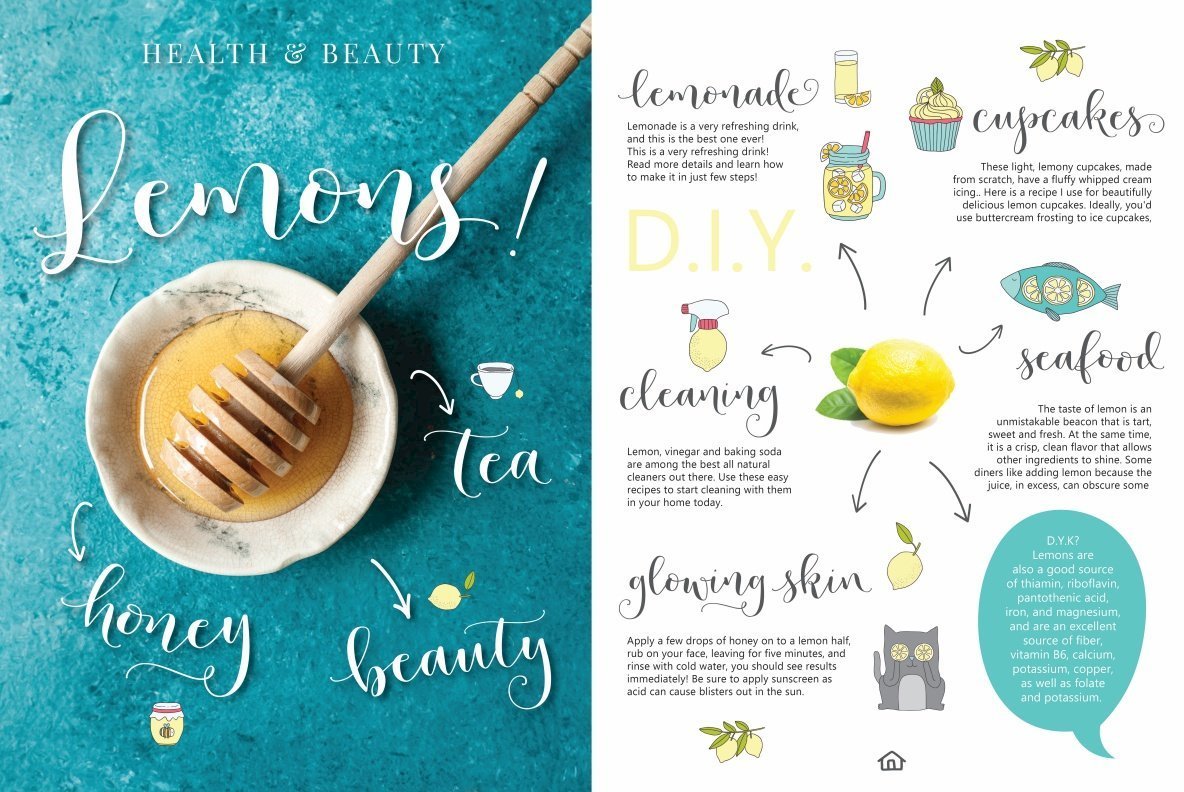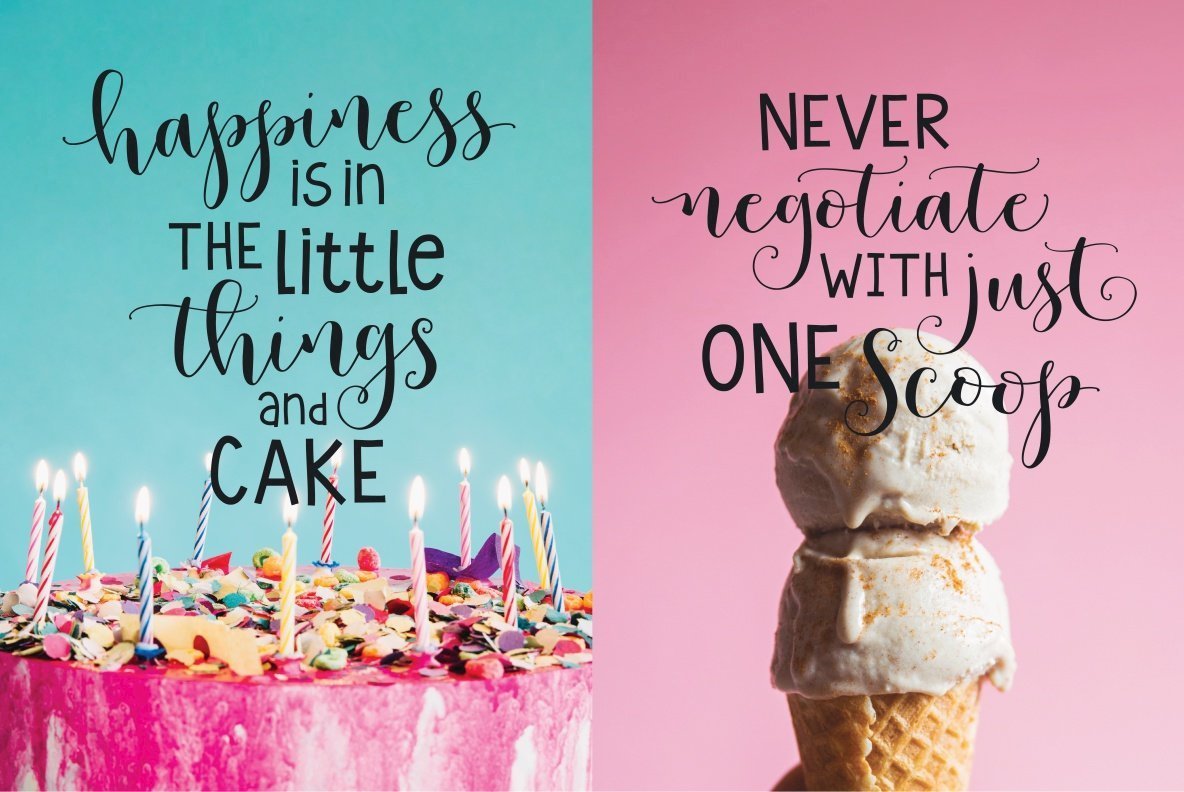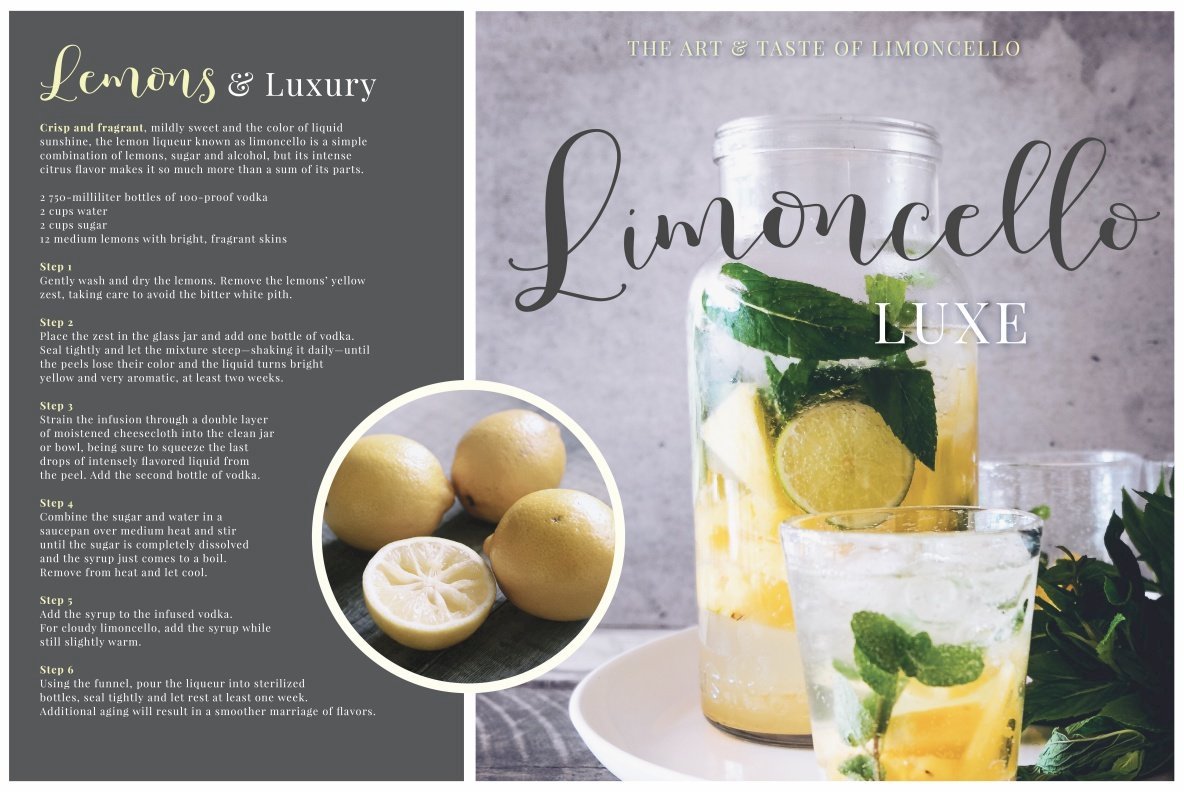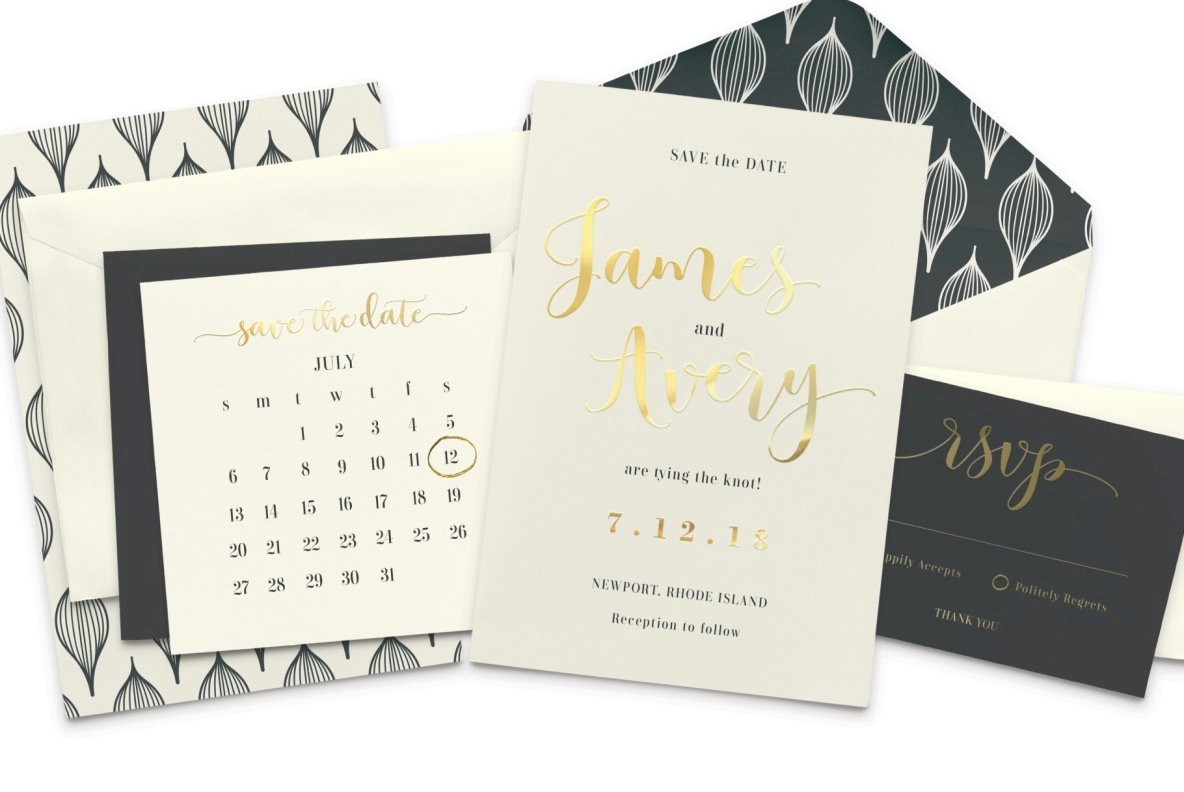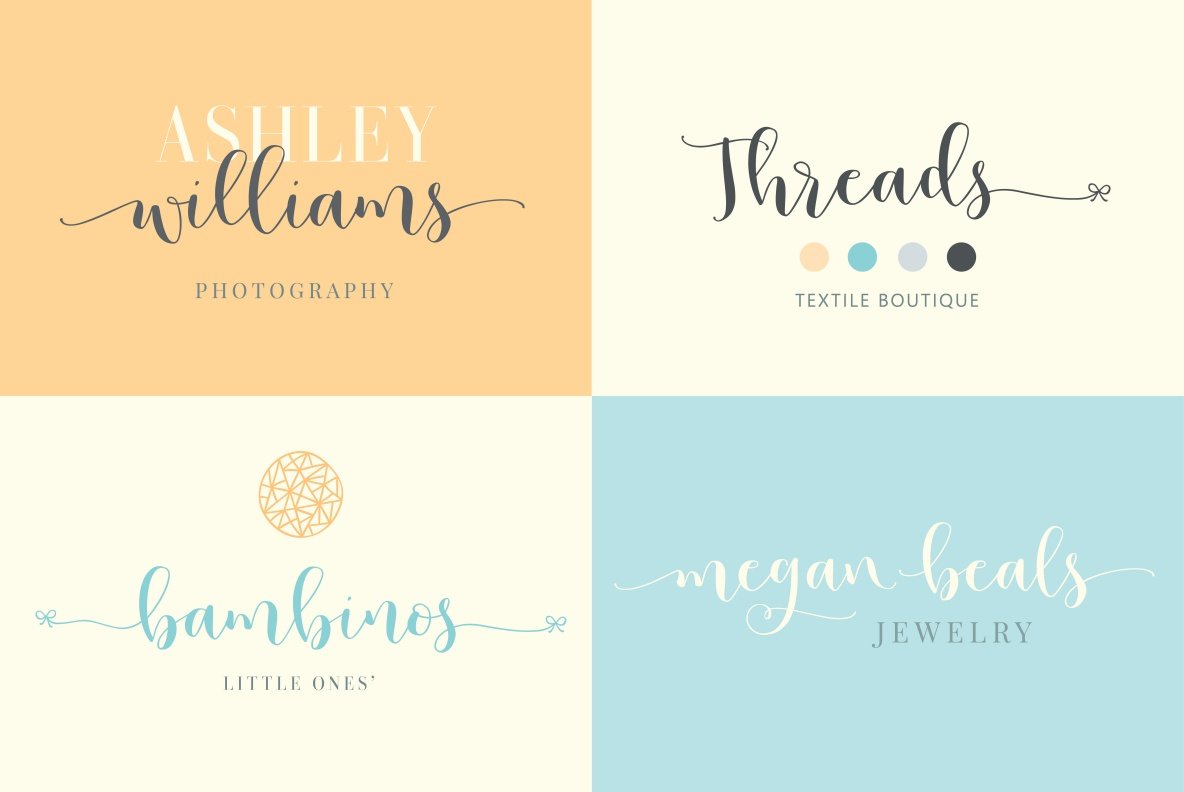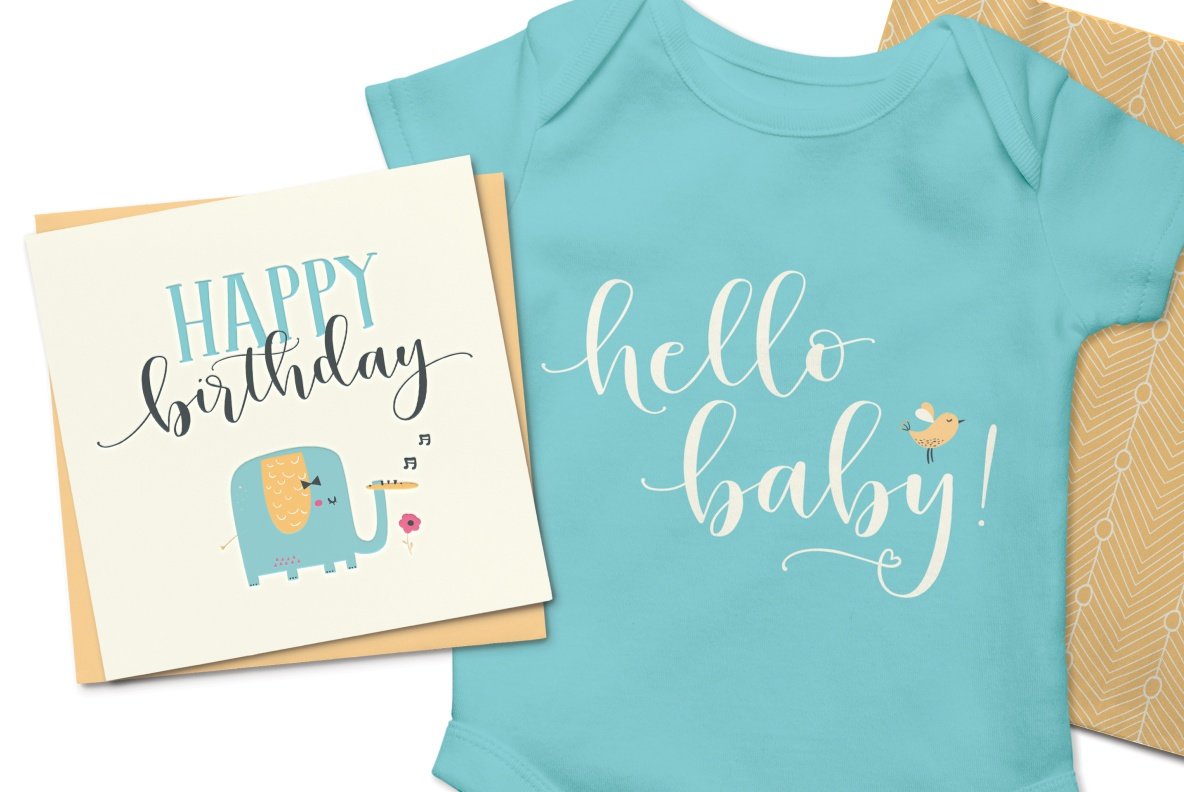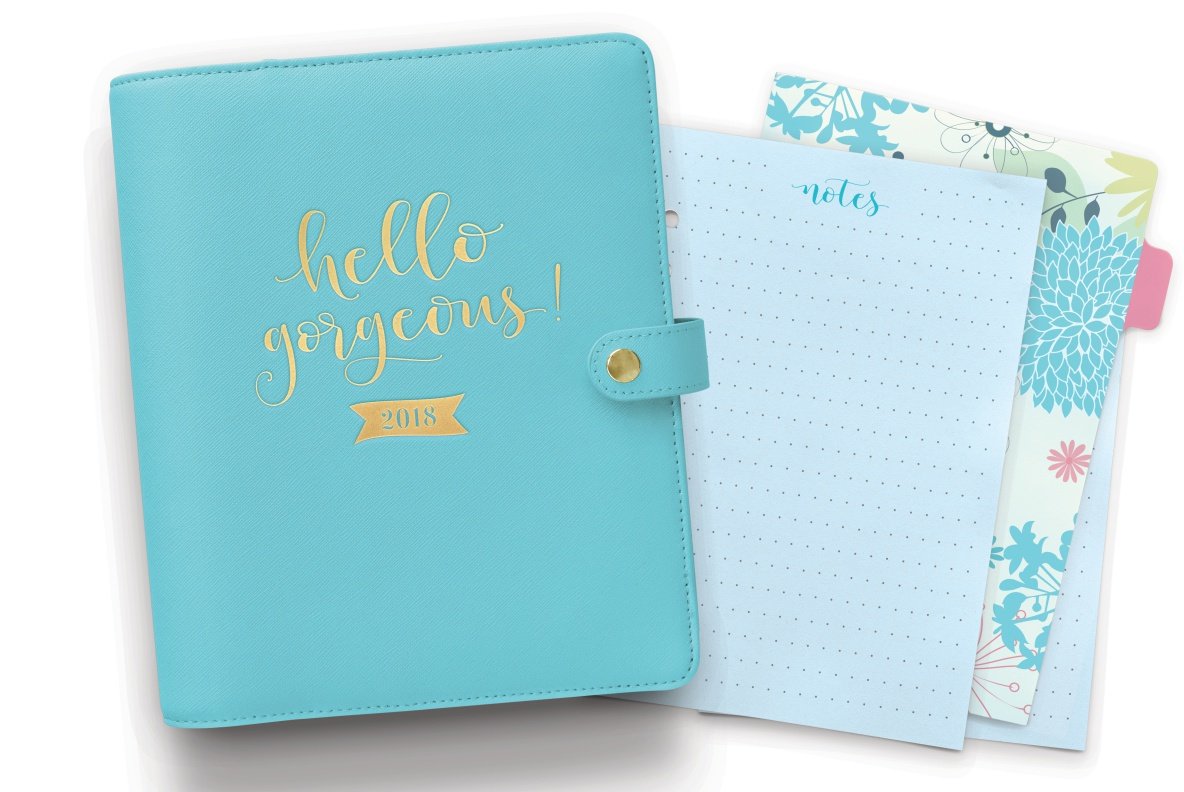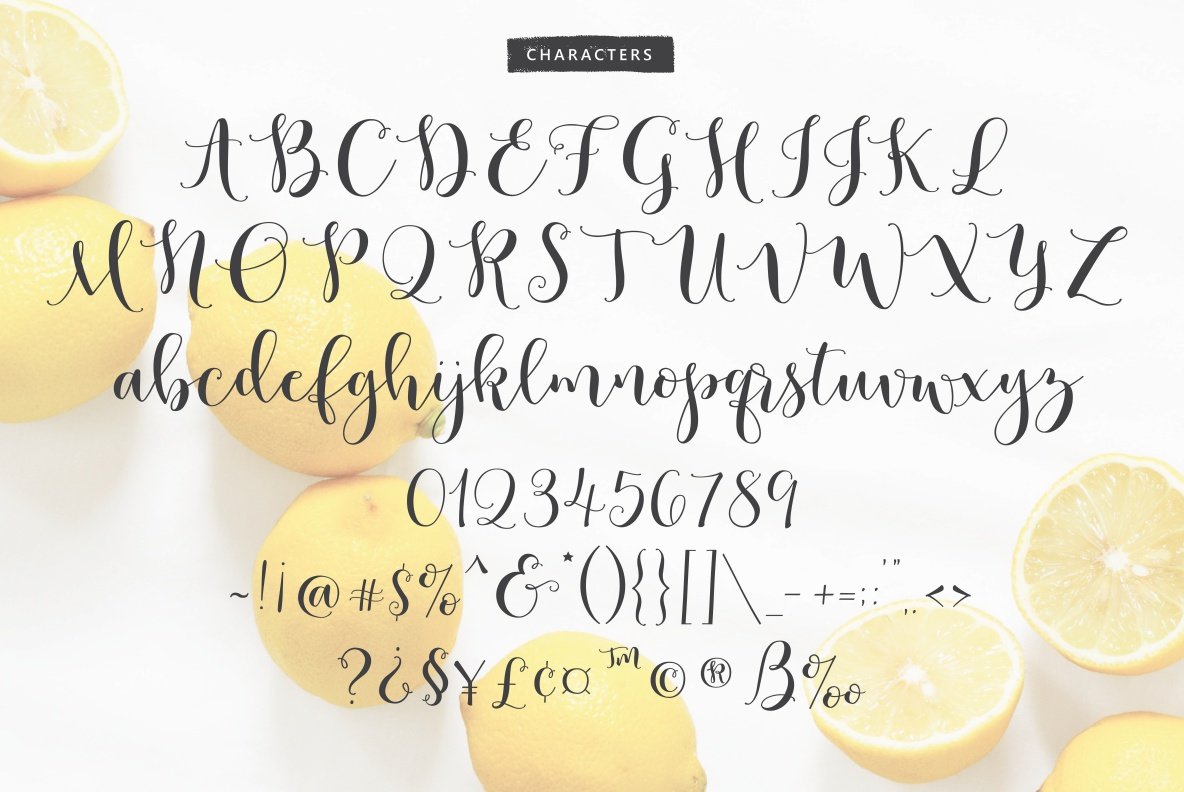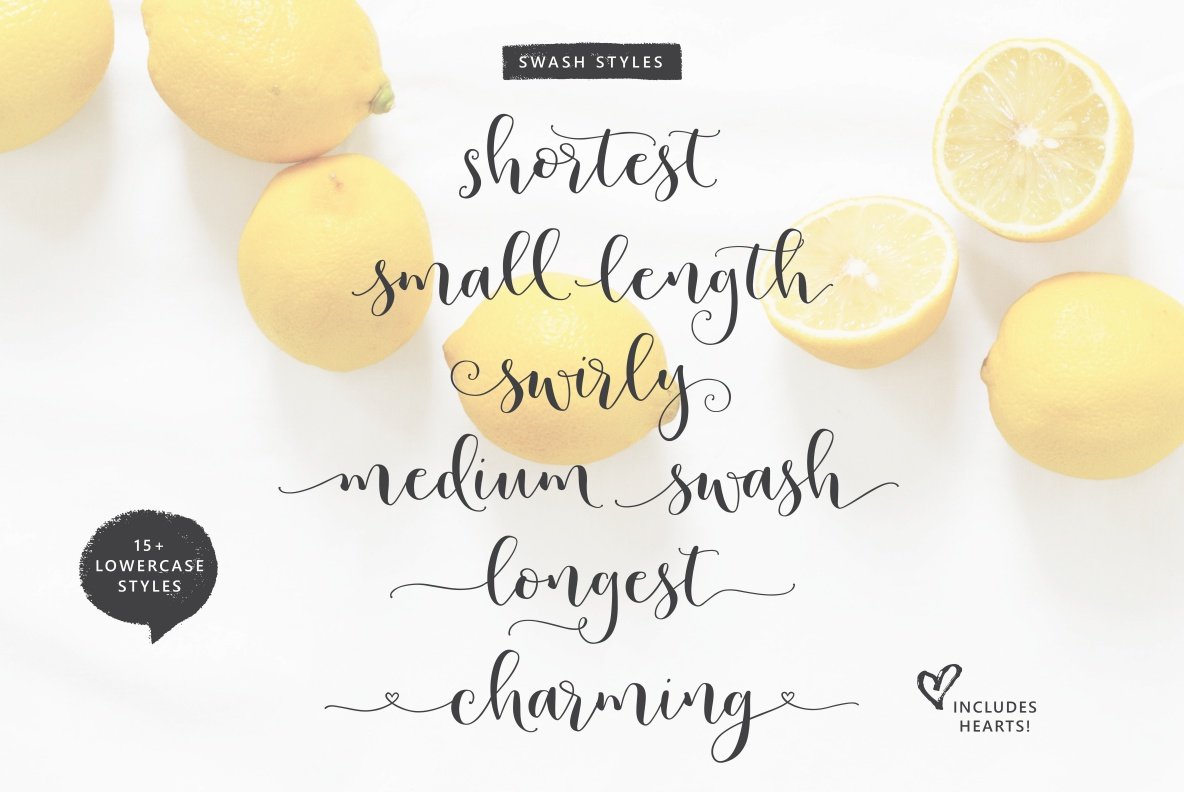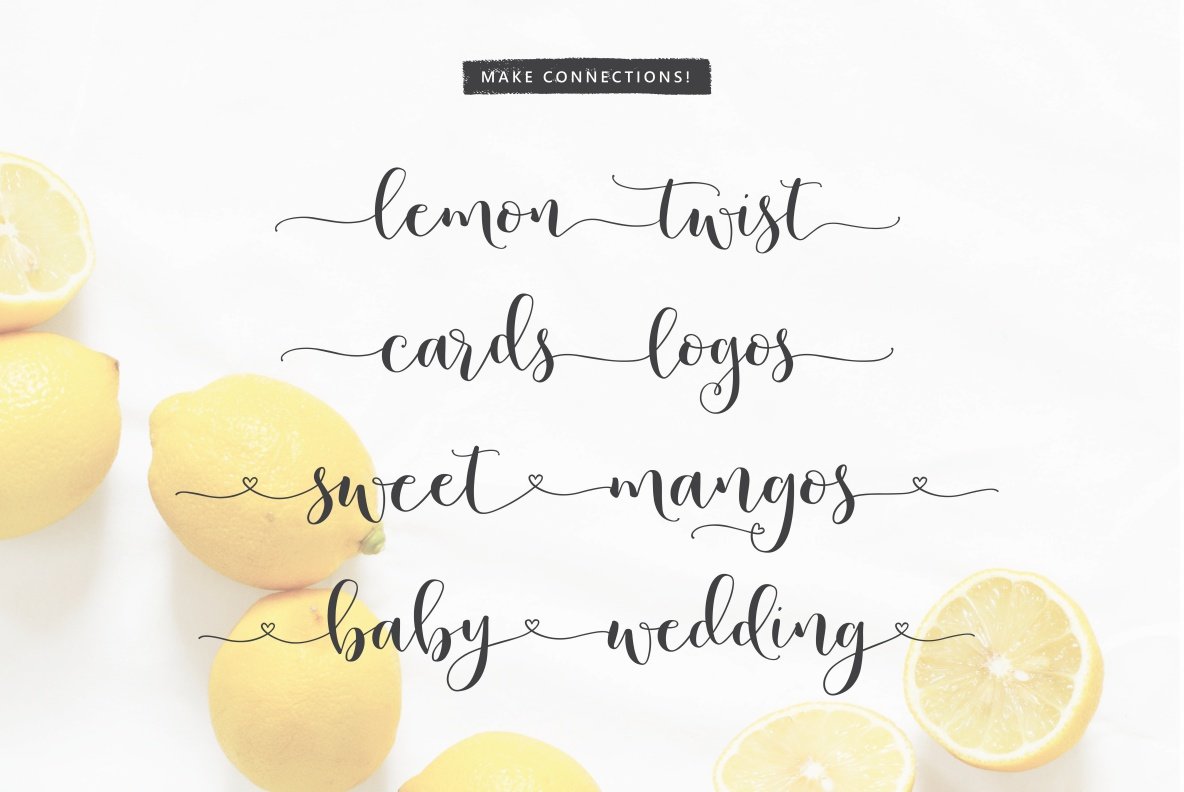
Lemons Mangos Sunshine
Love hand lettering lettering? Let me introduce Lemons Mangos Sunshine! This stylish hand lettered script was carefully created just for you!
This sweet feminine script is packed with 15+ playful lowercase styles. Font lovers will have so much fun, and everything you create will be a completely unique work of art. The combinations of swashes and alternate characters are endless. A variety of short to long swashes makes this script completely adaptable to all occasions. Swashes are even designed to make connections between words.
• 15+ Lower-case styles (various length swashes, hearts, bows and swirls)
• Alternate Upper-case
• Standard Ligatures
• Stylistic Common Letter Combinations
• International Glyphs and Special Punctuation